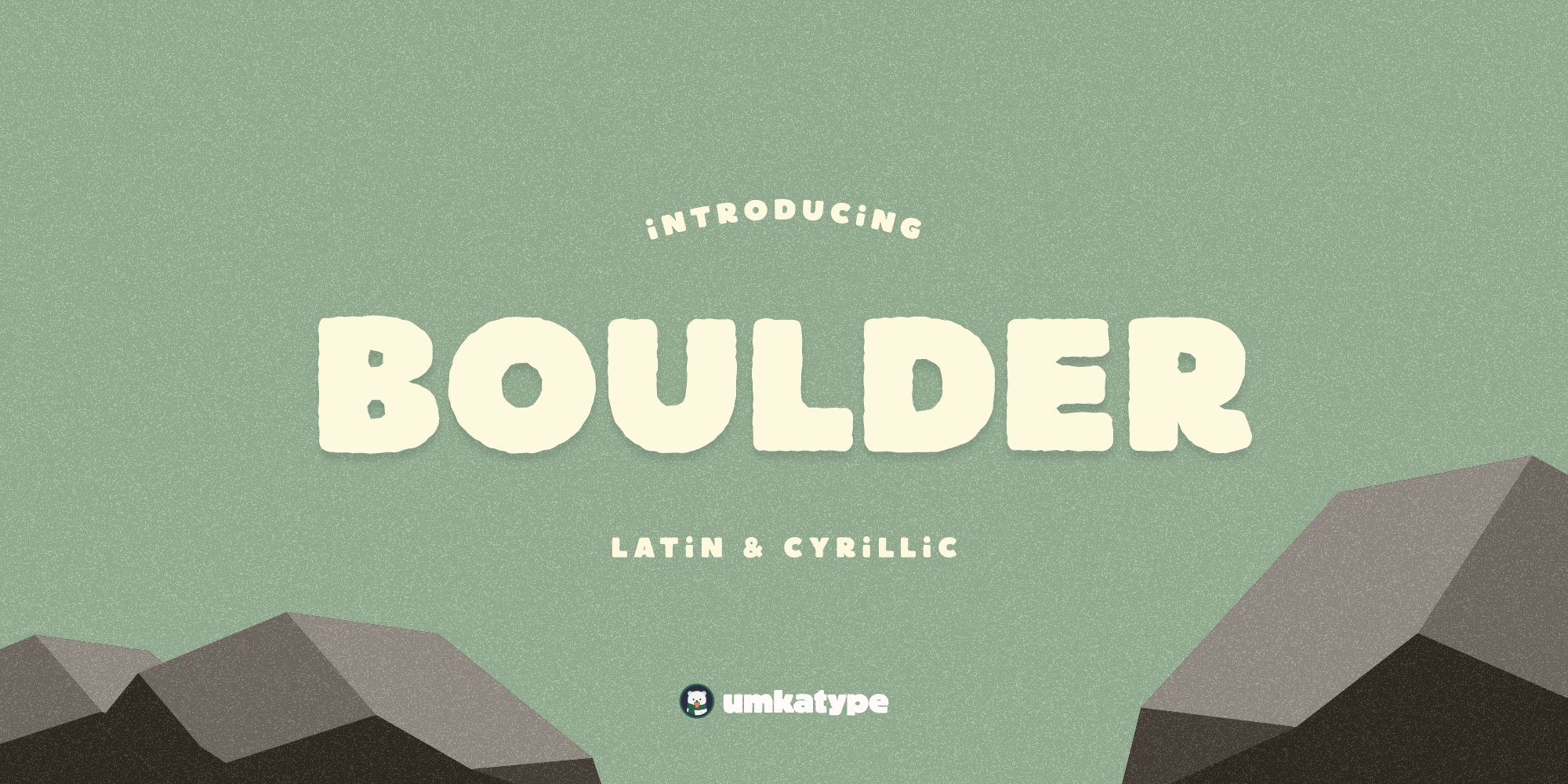
Boulder Font is excellent for rugged design applications including outdoor adventure branding, mountain sports equipment, hiking gear graphics, camping merchandise, wilderness tourism, extreme sports promotions, outdoor apparel, and nature conservation campaigns. This bold typeface captures the strength and durability of natural landscapes and outdoor adventures.
What makes Boulder Font exciting is its powerful representation of geological strength and natural resilience through robust letterforms that mirror the solidity of mountain terrain. The font features heavy, weathered characteristics with organic textures that evoke the raw beauty of wilderness environments. Its commanding presence communicates durability, adventure, and connection to nature's most impressive formations.
The Boulder Font family includes various outdoor-inspired styles such as Regular, Heavy, Weathered, and Textured variations that enhance the natural stone aesthetic. These rugged options provide extensive design flexibility for creating authentic outdoor brand identities that capture the essence of mountain environments and wilderness exploration.
This specialized display typeface brings authentic outdoor adventure spirit to contemporary design projects. Adventure brands and outdoor equipment companies choose Boulder Font Free Download for its exceptional ability to communicate strength and natural authenticity. The font's geological inspiration makes it perfect for hiking equipment, outdoor gear retailers, and adventure tourism brands that want to evoke the powerful beauty of mountain landscapes. Its robust character ensures memorable brand recognition while maintaining the authentic outdoor aesthetic that defines exceptional adventure-focused design work.